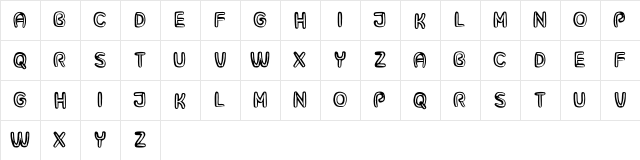
Surfaces 3D Rough Regular
Design Context for Surfaces 3D Rough Typeface
Surfaces 3D Rough trades polish for personality, using distressed and eroded forms to bring grit and attitude to creative work.
Suited to punk-influenced zines, underground music branding, streetwear, and raw, anti-corporate design.
Pro Tip: Pair Surfaces 3D Rough with intentionally raw or lo-fi design elements. Fighting against it with overly polished surroundings will undermine its personality.